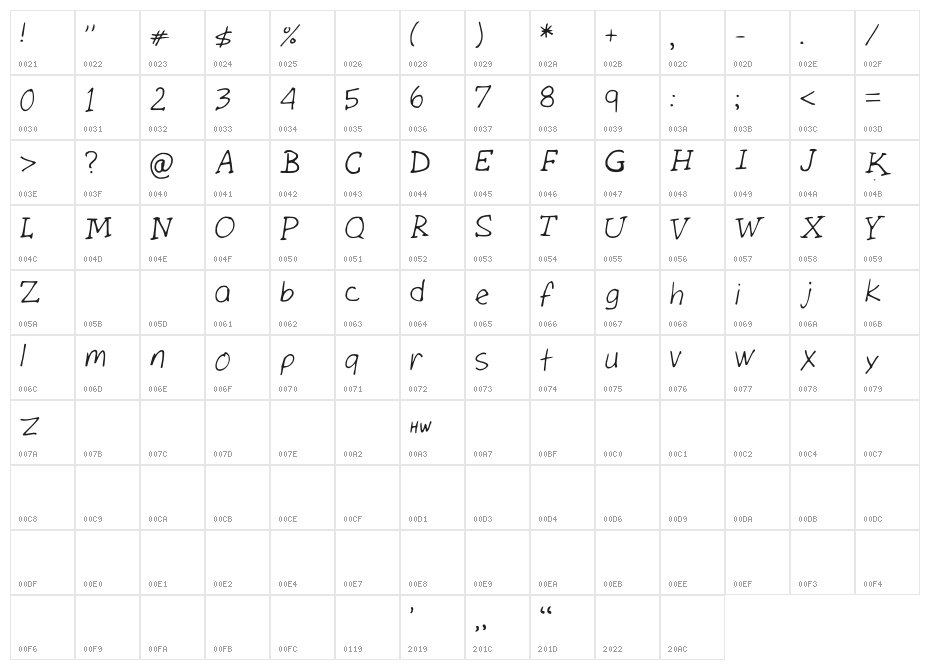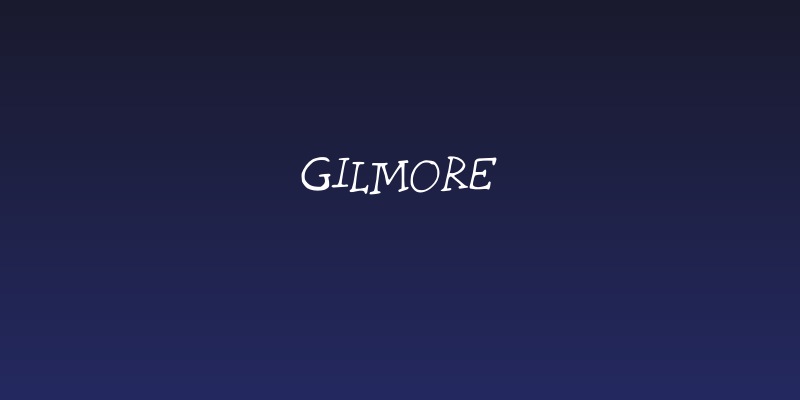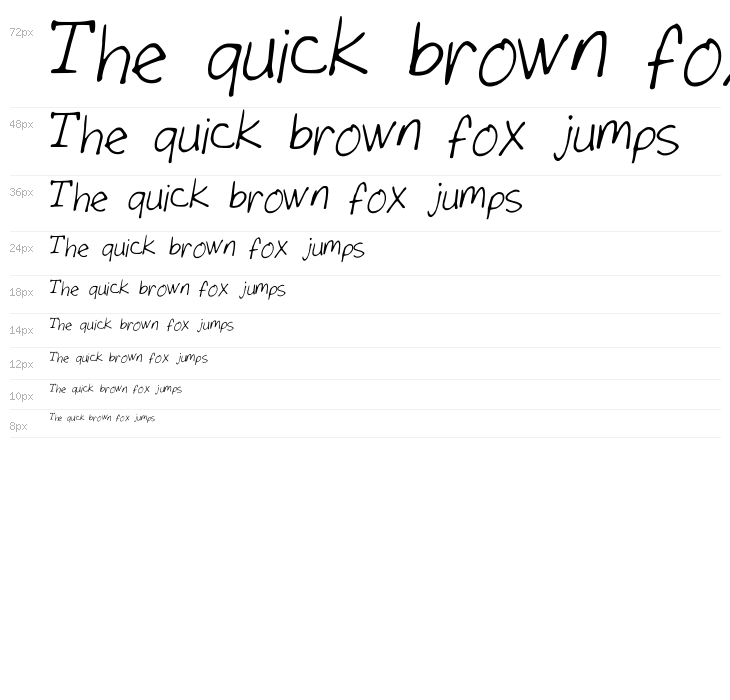
Gilmore Font
Gilmore Description
This font features a casual, handwritten style with a playful and informal appearance. The characters exhibit a slight slant, giving them a dynamic and lively feel. The strokes are smooth and consistent, with rounded edges that enhance its approachable and friendly look. The uppercase letters are slightly larger than the lowercase, maintaining a good balance and readability. The numerals are clear and distinct, matching the overall style of the alphabet. Special characters are well-integrated, maintaining the font's cohesive aesthetic.
| Proposed Projects | Ideal for greeting cards, invitations, personal branding, and creative projects that require a friendly and approachable touch. |